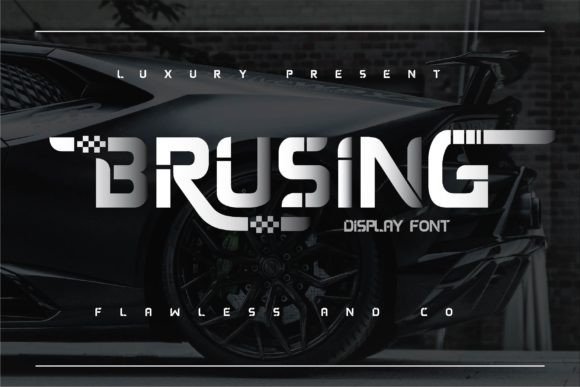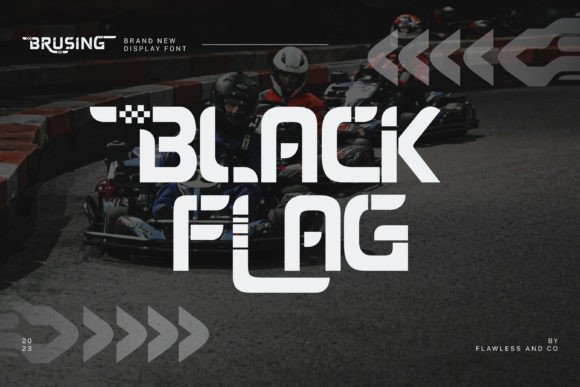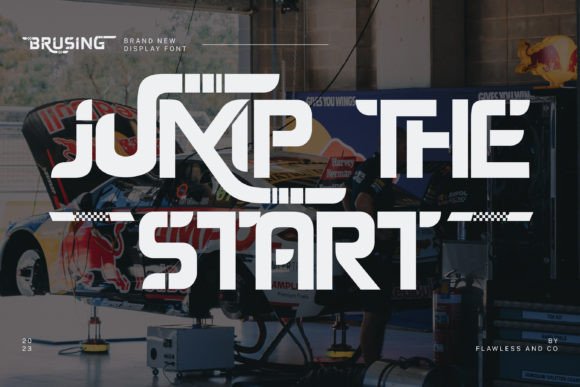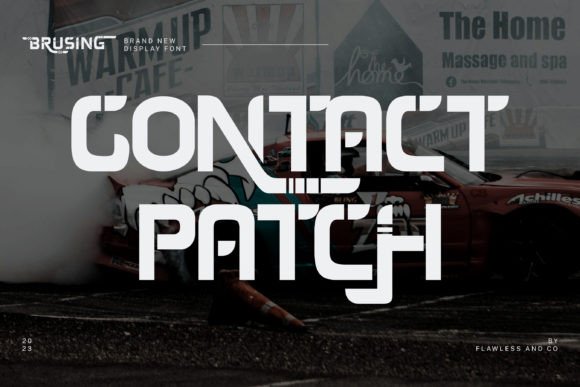
Brusing Font
About the Brusing Font
Get ready to be inspired by Brusing Font, a fresh and dynamic typeface for modern creators. Brusing is a bold display font tailor-made for the world of sports. Its impactful uppercase letterforms are perfect for creating attention-grabbing designs on jerseys, banners, and posters. With a dynamic and athletic feel, Brusing adds a powerful touch to sports branding and promotional materials. Ideal for various sports-related projects, this font is your go-to choice for making a strong visual statement.
Brusing’s strong, uppercase-centric design excels in headlines, logos, and short impactful phrases. It’s less suitable for body text or UI elements due to its limited lowercase and potential readability issues in smaller sizes or long passages. Avoid using it for applications requiring extensive text.
Its bold and energetic personality aligns perfectly with brands focused on action, power, and competition—think athletic apparel, energy drinks, or extreme sports. Consider pairing it with a clean sans-serif like Open Sans for body copy, or a more geometric sans-serif like Futura for a modern, high-contrast look.
For a slightly softer approach, a neutral serif like Garamond could create a sophisticated contrast. Avoid pairing it with overly decorative or whimsical fonts, which would clash with its strong, athletic character.
Brusing Font Usage Examples
Brusing Font Example